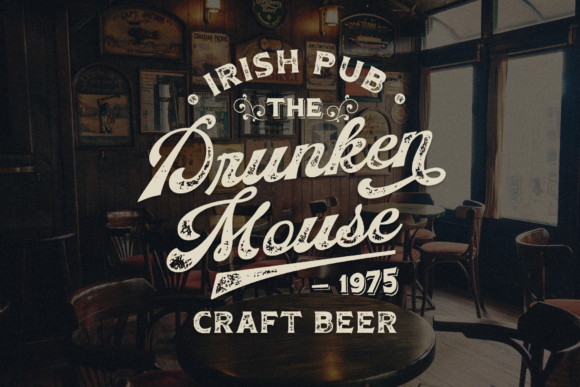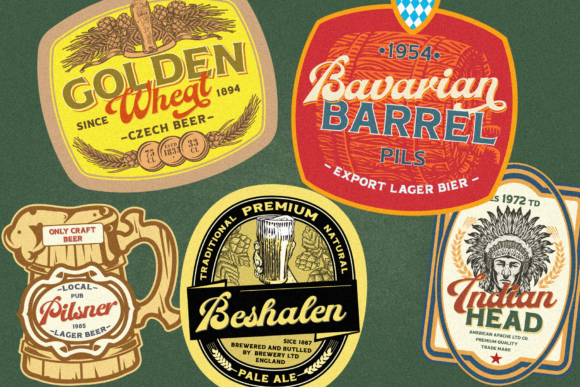
Butcher's Daughter Font
Butcher’s Daughter is a cool, bold and vintage styled display font. This font is imposing and features uniquely shaped letters, and as a result, it will easily match a wide range of creations that require a distinct touch.